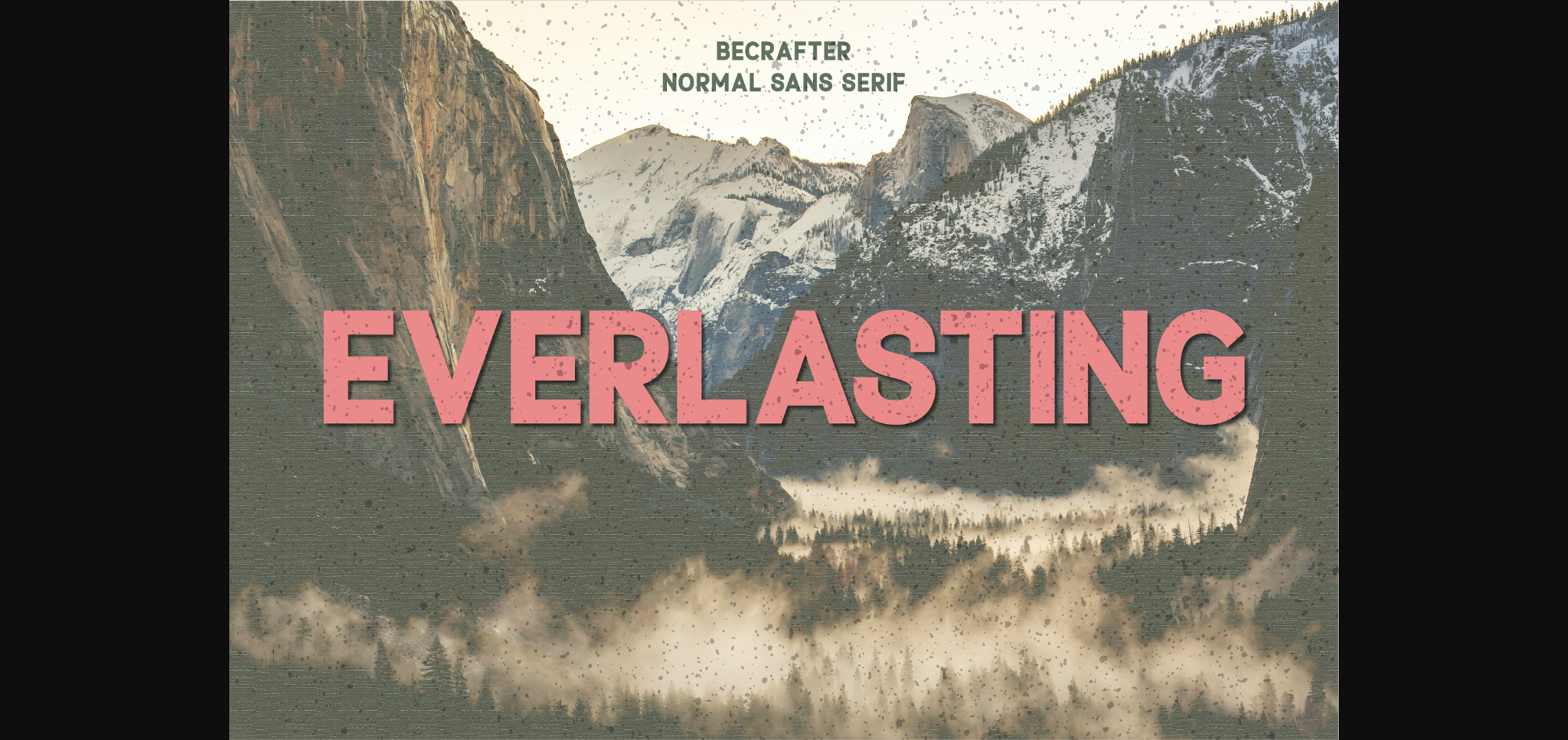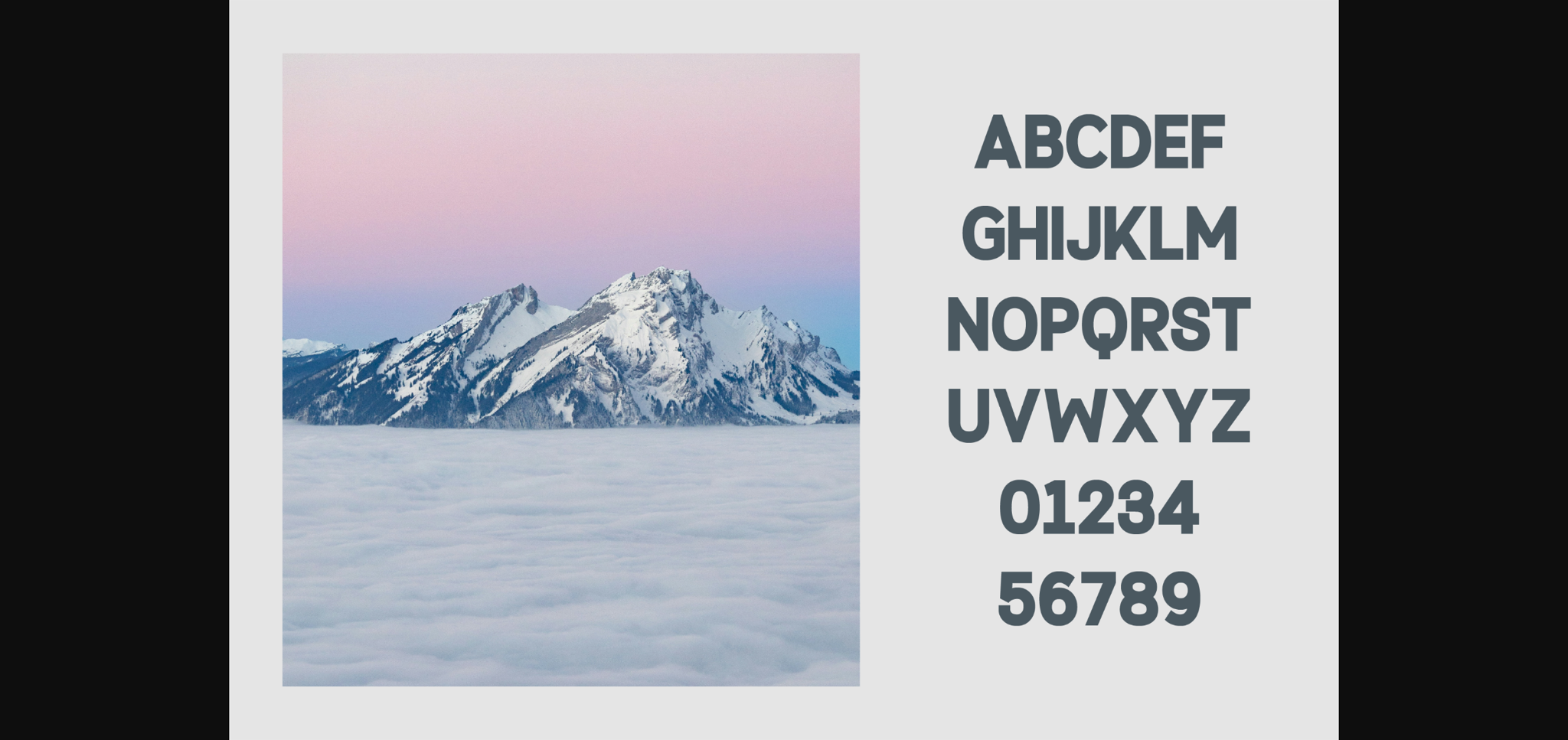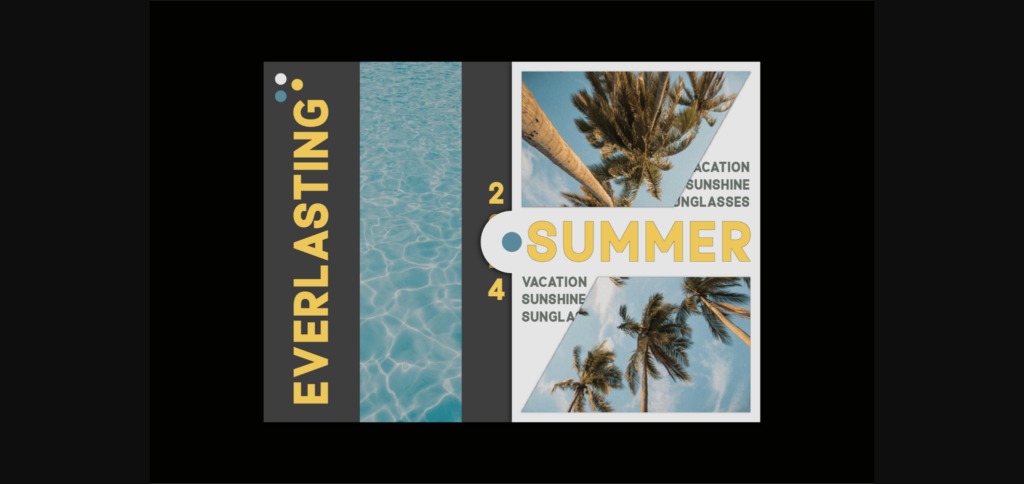
Everlasting Font
About Everlasting Font
Introducing Everlasting – a powerful, distinctive bold type font. This uppercase vintage sans serif font is a masterstroke of versatility, effortlessly adding a touch of class to every application. The timeless design of Everlasting can transform logos into iconic symbols and resurrect printed materials into pieces of art. Get ready to infuse your unique creations with the touch of modern elegance that Everlasting offers. It’s more than just a typeface; it’s your gateway to endless design possibilities.